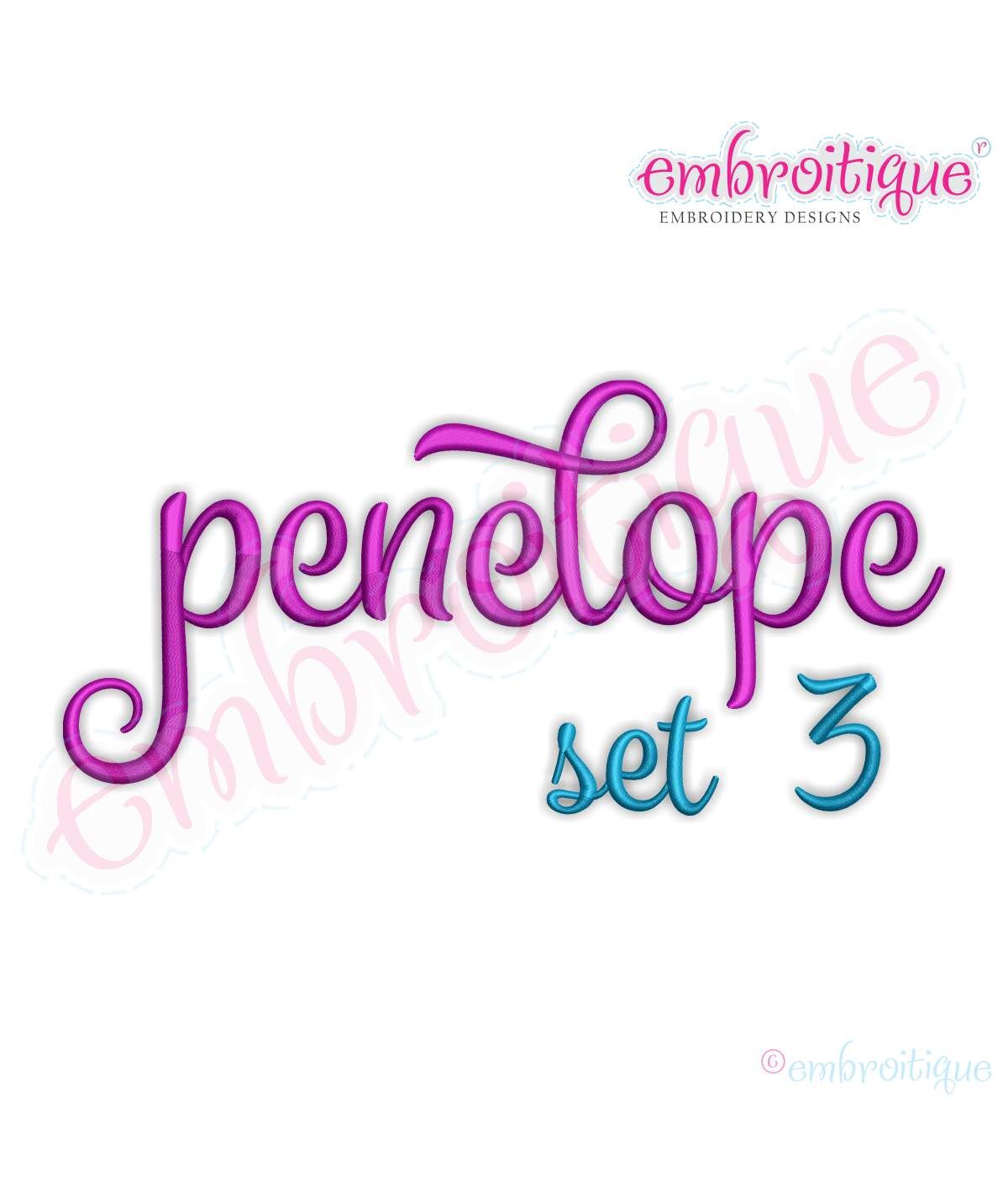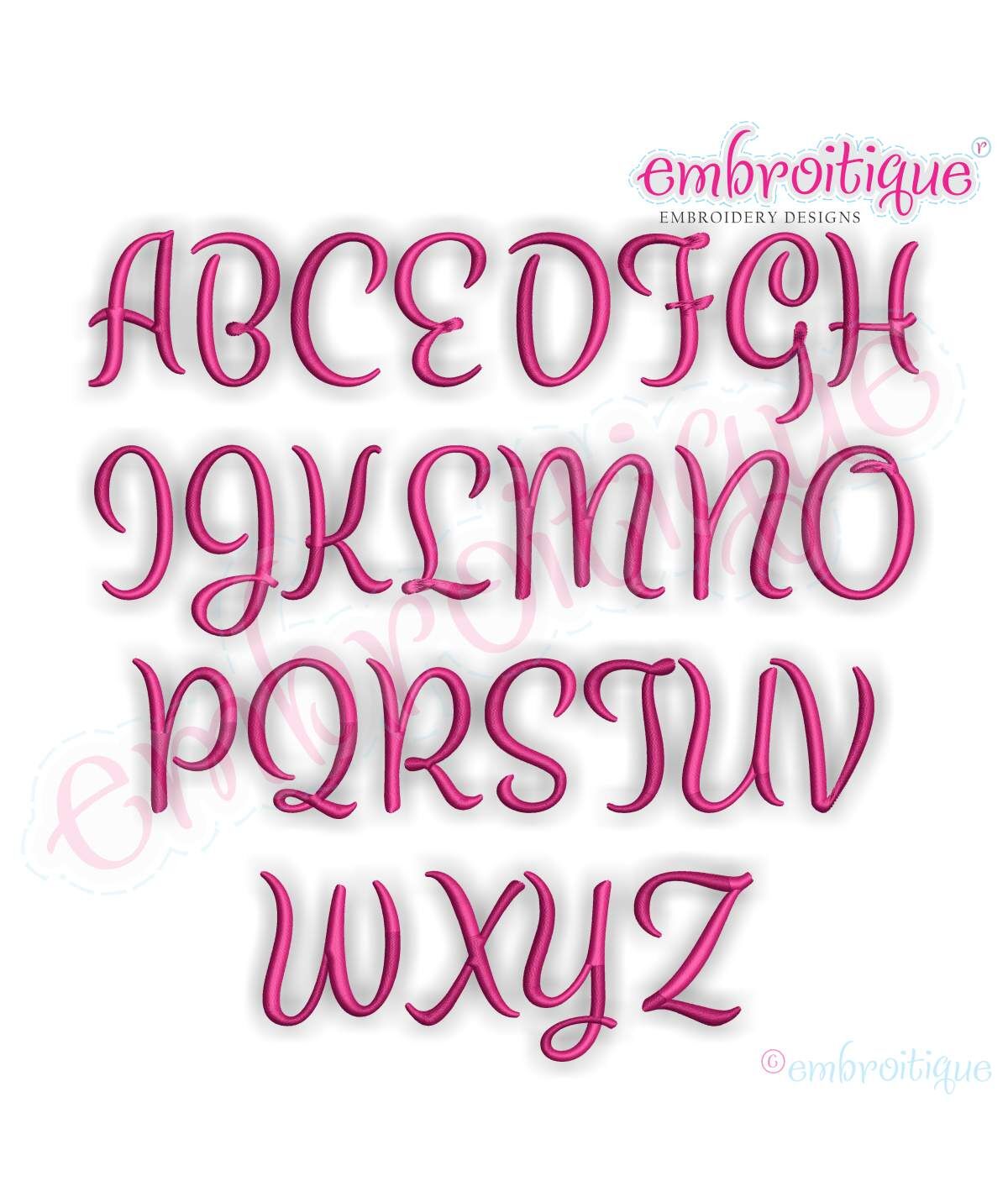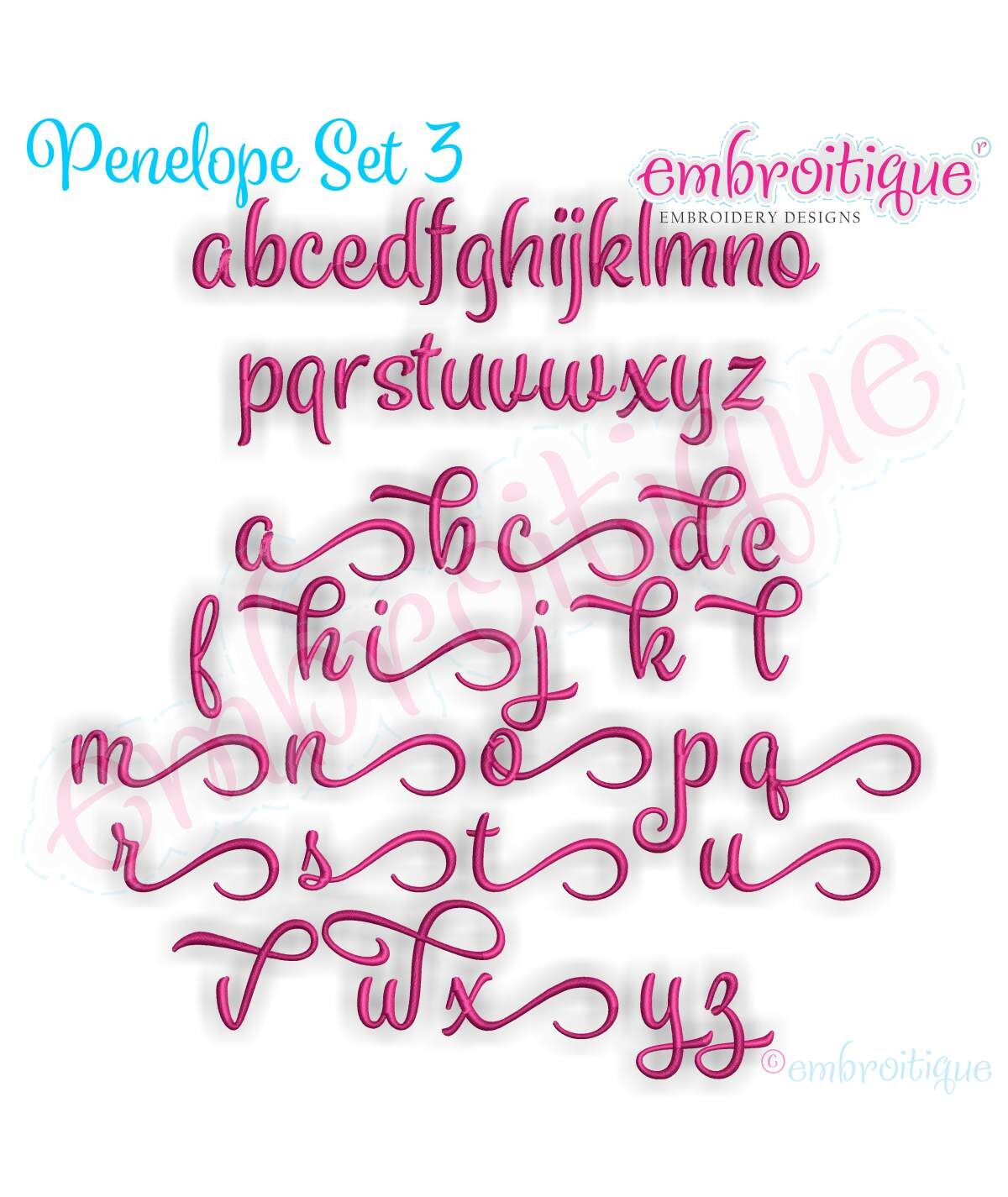
Penelope Set 3 - Exclusive Calligraphy Script Monogram Alphabet Font for Machine Embroidery
Mix and match this set with our other Penelope Monogram sets  to create beautiful wording and names hundreds of different ways! This set will be one of your favorite "go-to" alphabets for years to come! Â